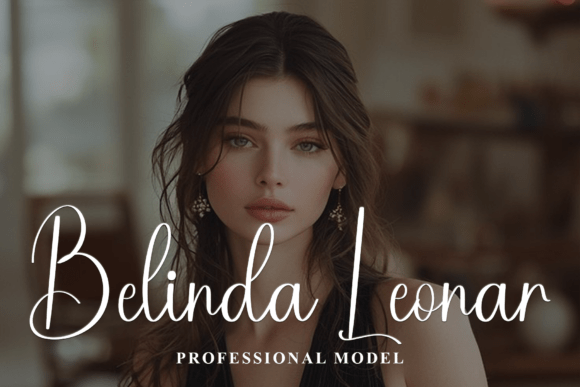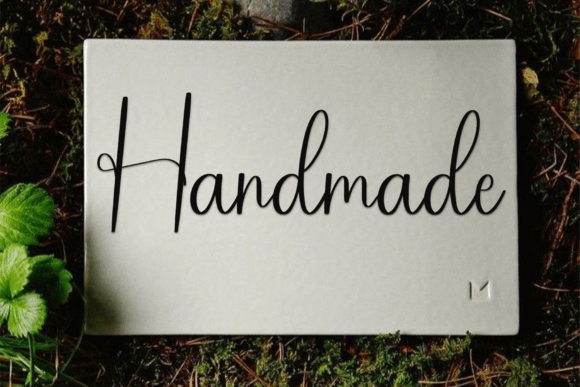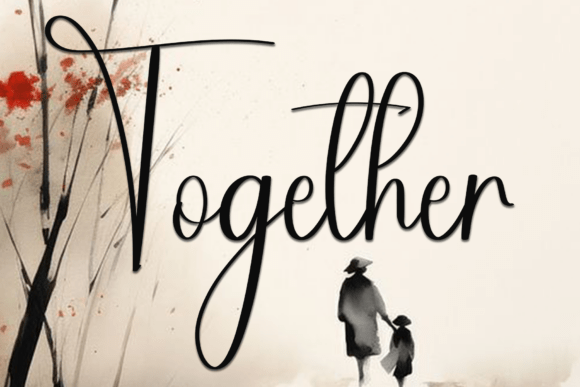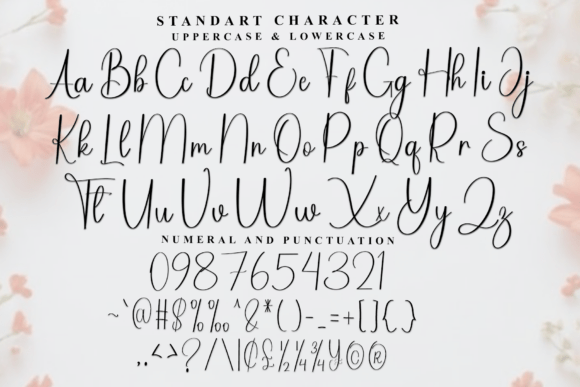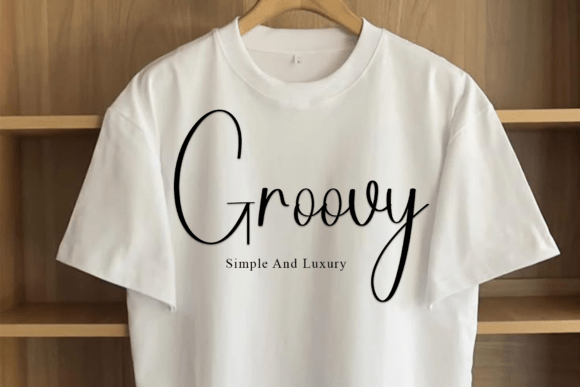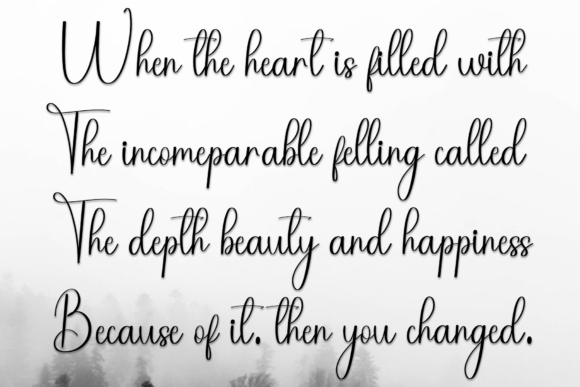
Introducing Beliving Font: The Ultimate Holiday Typeface
Are you looking for a font that captures the essence of the holiday season? Do you want to add a touch of magic to your designs and make them stand out? Look no further than Beliving Font, a festive and merry typeface that’s perfect for greeting cards, gift tags, and holiday-themed projects.
Beliving Font is a decorative typeface that’s specifically designed to bring the spirit of the holiday season to your designs. With its whimsical flair and enchanting elements, this font is sure to add a touch of wonder to your words. Whether you’re creating holiday greeting cards, gift tags, or festive posters, Beliving Font is the perfect choice.
Beliving Font is ideal for a wide range of holiday projects, including:
- Greeting cards: Create beautiful and festive holiday greeting cards that will make your loved ones feel special.
- Gift tags: Add a personal touch to your gifts with custom gift tags that feature the Beliving Font.
- Holiday-themed posters: Create eye-catching posters that showcase the magic of the holiday season.
- Social media graphics: Add some holiday cheer to your social media graphics with Beliving Font.
Why Choose Beliving Font?
There are many reasons why Beliving Font is the perfect choice for your holiday designs. Here are just a few:
- Unique and festive design: Beliving Font has a unique and festive design that’s sure to stand out.
- High-quality glyphs and ligatures: The font features high-quality glyphs and ligatures that will make your text look amazing.
Tips for Using Beliving Font
Here are a few tips for using Beliving Font to get the most out of its features:
- Use ligatures and glyphs: Take advantage of the font’s ligatures and glyphs to add some extra flair to your text.
Beliving Font is a festive and merry typeface that’s perfect for adding a touch of magic to your holiday designs. With its decorative elements and whimsical flair, this font is sure to bring the spirit of the holiday season to your words. Whether you’re a designer or crafter, Beliving Font is a great choice for any holiday project. So why wait? Download Beliving Font today and start creating some amazing holiday designs!